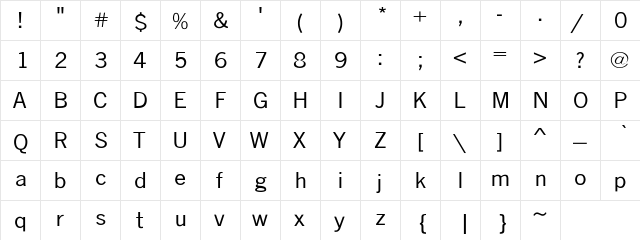
Abell Extended Regular
Design Context for Abell Extended Typeface
Abell Extended offers clean, dependable letterforms without strong stylistic allegiance, making it a practical choice for designers who need flexibility.